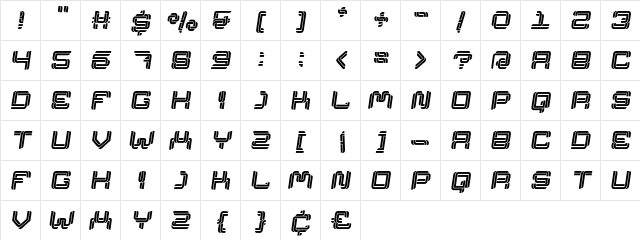
Complete Athaar Demo Italic glyph index. Displaying only characters natively supported by Athaar Demo Italic font.
Athaar Demo is a composed and adaptable typeface that performs quietly and consistently across a wide range of design contexts. The slanted form adds forward momentum and visual energy.
Pro Tip: Use Athaar Demo for emphasis, pull quotes, and subheadings where its slanted energy can add rhythm to the layout.